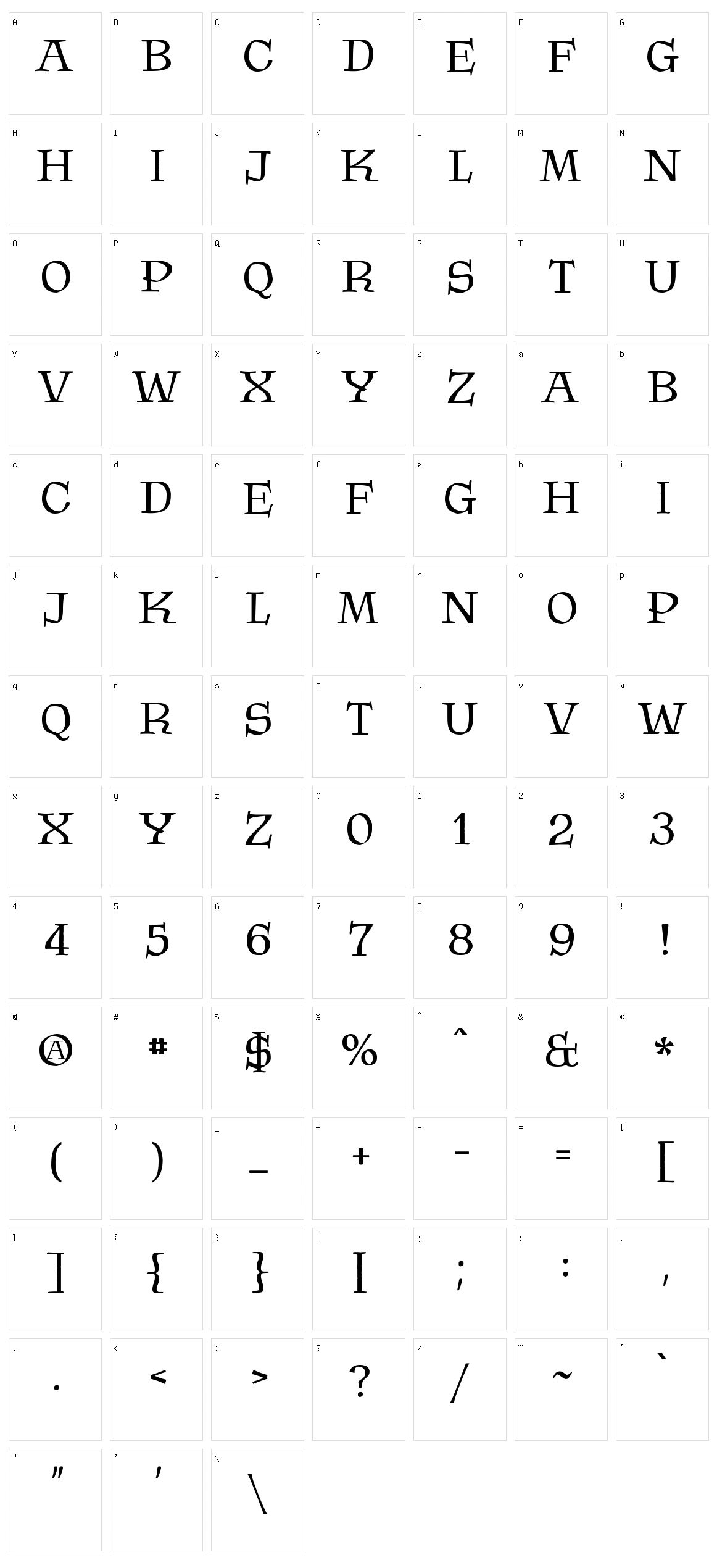
Krasomila
Designed by: V?t ÄŒond?k
Category: Celtic & Gothic
Krasomila
by Vít Èondák
Category: decorative
The font comes from hand-drawn letters used in credits of the movie Pyšná princezna (The Proud Princess).
Font vychází z ruènì psaného písma, které bylo použito v titulcích filmové pohádky Pyšná princezna.